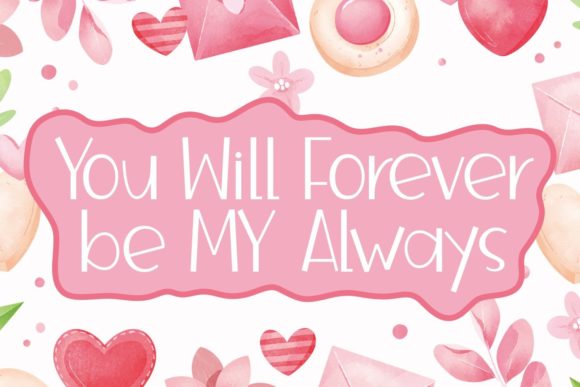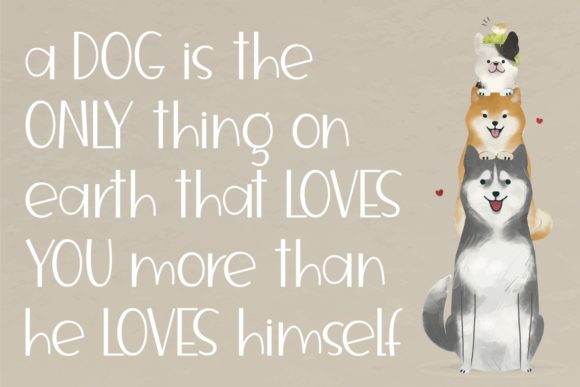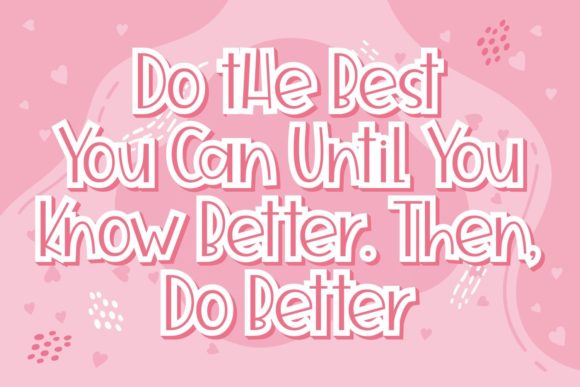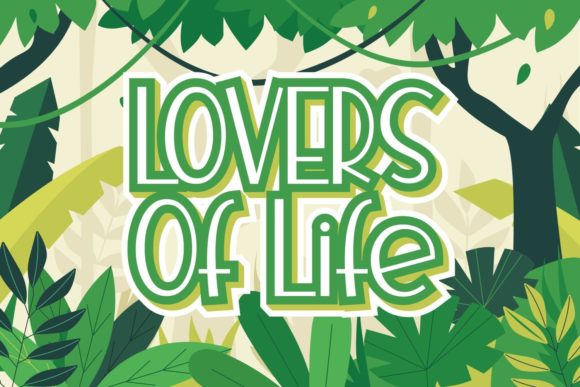
Introduction to Romance the World Font
Romance The World is a childish, easy-to-read display font that conveys impeccable friendliness.
Key Features of Romance the World Font
Why Choose Romance the World Font?